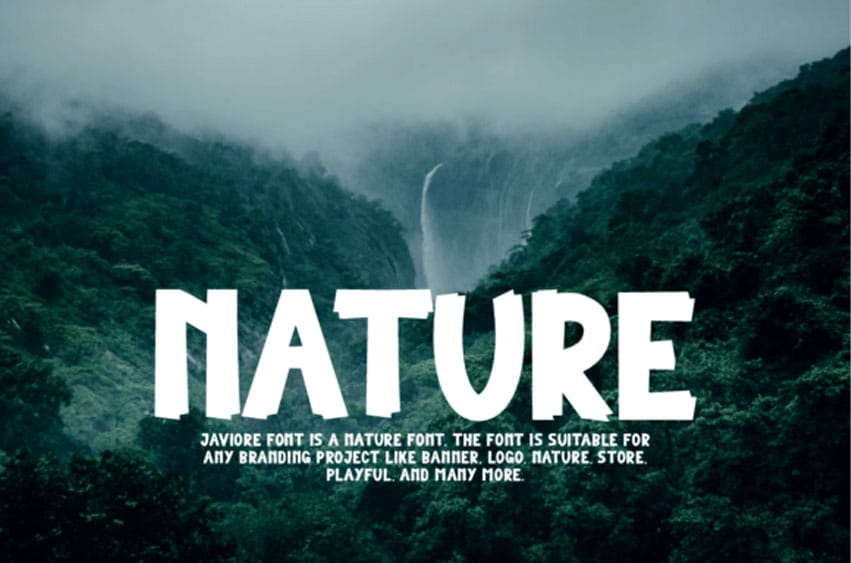
Javiore Font is a bold and adventurous nature display font inspired by the rugged beauty of the great outdoors.
With its sharp edges, dynamic letterforms, and organic energy, Javiore brings a raw, untamed personality to your design projects. Whether you’re crafting branding for eco-friendly products, signage for outdoor events, or playful logo designs, this font makes a strong and memorable impact.
Its hand-cut, almost wood-carved style evokes a sense of wilderness and exploration, making it ideal for nature brands, travel gear, camping-themed graphics, forest adventure logos, or any creative work that wants to channel the spirit of the wild. Despite its bold presence, Javiore remains fun and approachable, offering a unique balance between strength and playfulness.
Perfect for banners, packaging, social media visuals, and more, Javiore adds a breath of fresh air to any layout. Let your next project speak with power and nature-driven style using this standout display font.